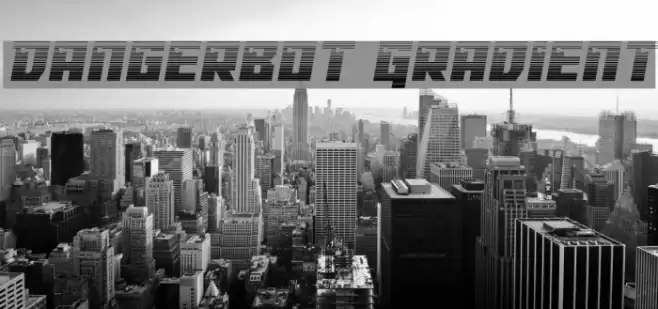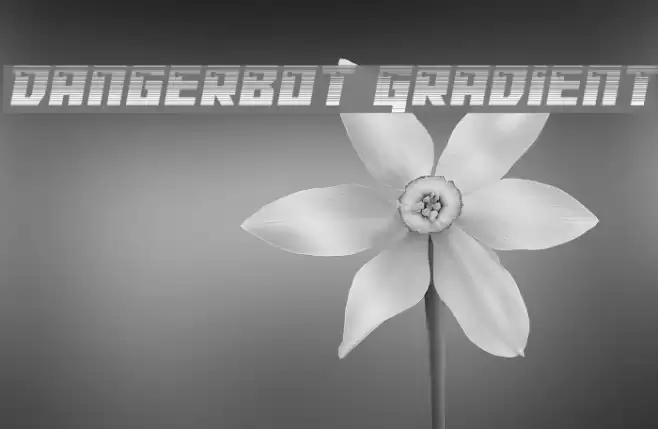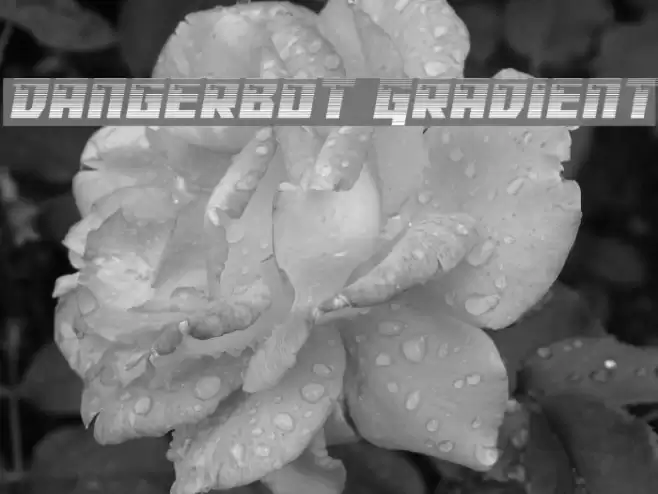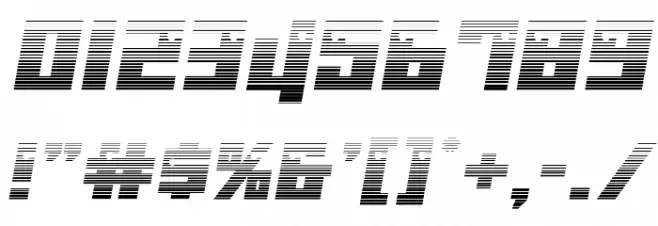
Dangerbot Gradient Font
Dangerbot Gradient Description
This font features a bold, futuristic design with a unique gradient effect that gives each character a sense of depth and movement. The uppercase and lowercase letters, as well as numbers and special characters, are constructed with horizontal lines that create a dynamic visual impact. The style is reminiscent of digital or sci-fi themes, making it ideal for projects that require a modern and edgy look. The characters are evenly spaced, ensuring readability while maintaining a distinct aesthetic. The gradient effect adds a layer of complexity, making it suitable for eye-catching designs.
A bold, futuristic font with a gradient effect and dynamic horizontal lines from Sci-fi fonts.
- Proposed Projects: Ideal for sci-fi themed posters, video game titles, technology branding, and futuristic event invitations.
- Overall Style: Futuristic